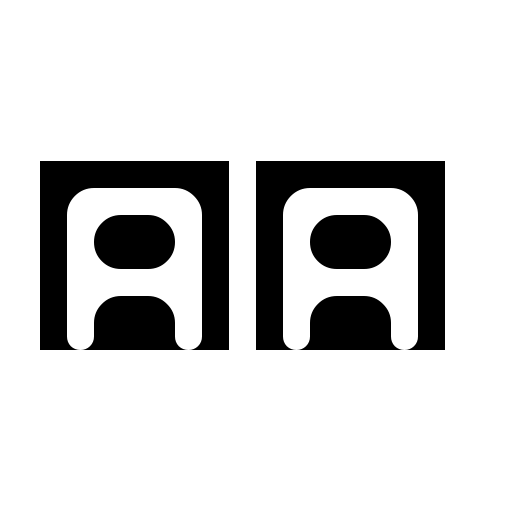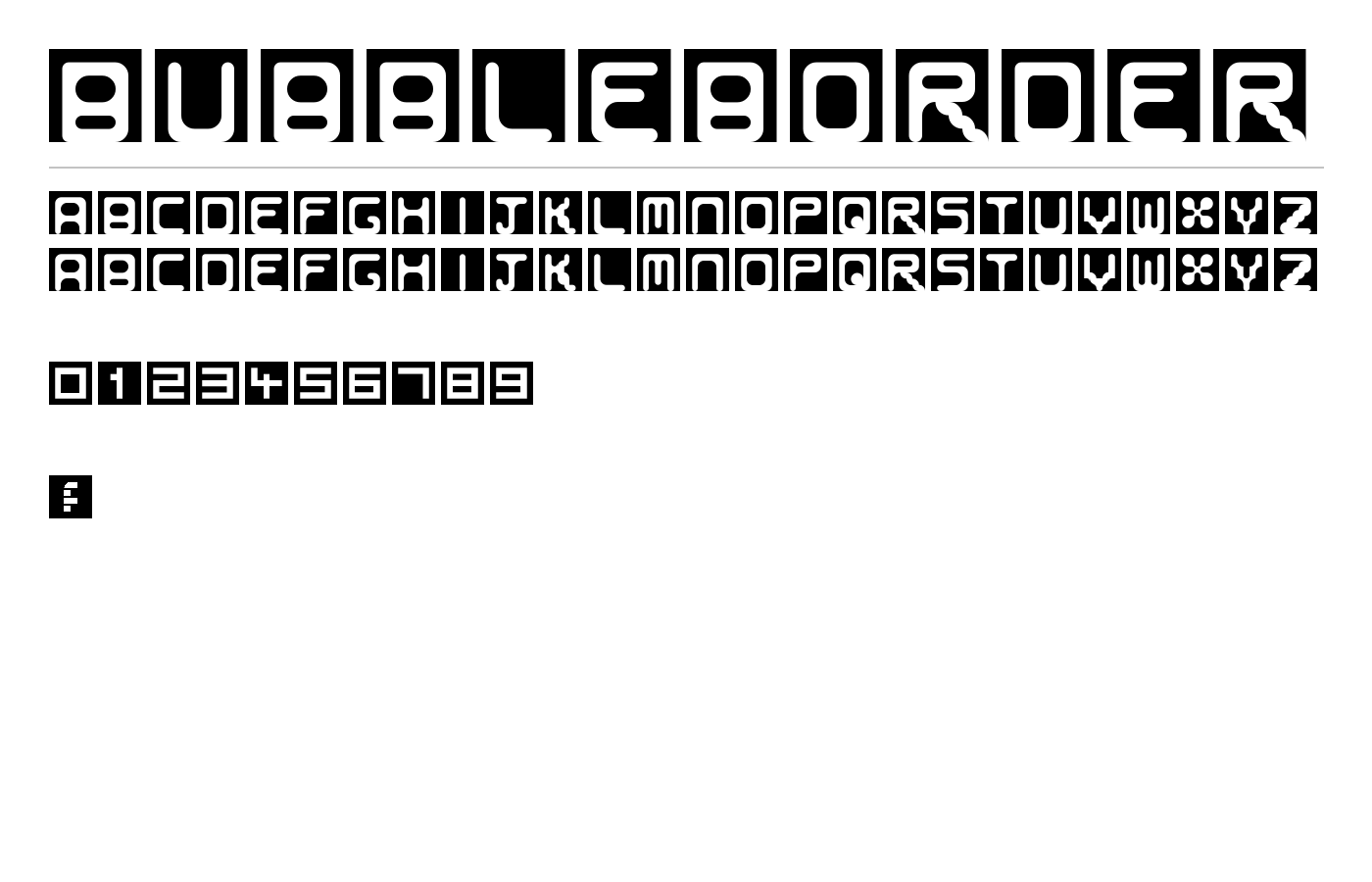
BubbleBorder is a bold, geometric sans serif font with a playful and modern vibe, characterized by its distinctive rounded corners and thick outlines that create a bubble-like border around each letter. Its high contrast between the solid fill and the border adds a dynamic, eye-catching effect, making it perfect for creative logos, posters, and packaging where a fun yet strong statement is needed. This font works especially well in display settings, bringing an energetic and approachable personality to designs.
BubbleBorder Font
About BubbleBorder Font
| Font family | BubbleBorder Font |
| Designer | bugs! |